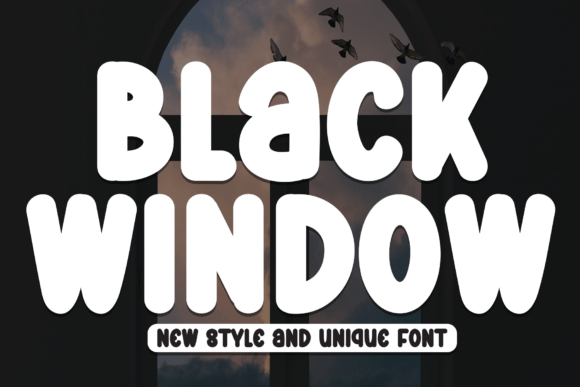
Introducing Black Window Font: The Bold and Quirky Display Font for Creative Projects
In the world of typography, fonts play a crucial role in conveying the tone and personality of a brand or creative project. When it comes to making a statement, a bold and eye-catching font is essential. This is where Black Window Font comes in – a quirky display font that packs a punch with its rounded, chunky shapes and fun energy. In this article, we’ll explore the features and benefits of Black Window Font, and how it can elevate your creative projects to the next level.
What is Black Window Font?
Black Window Font is a bold, quirky display font designed to bring a lively and friendly vibe to any creative project. Its oversized forms make it especially great for attention-grabbing titles, headlines, branding, posters, or kids-themed designs. The font’s rounded, chunky shapes give it a unique and playful personality that’s sure to stand out.
Key Features of Black Window Font
- Bold and Quirky Design: Black Window Font boasts a bold and quirky design that’s perfect for making a statement.
- Rounded and Chunky Shapes: The font’s rounded, chunky shapes give it a fun and playful personality.
- Oversized Forms: The font’s oversized forms make it ideal for attention-grabbing titles and headlines.
- Lively and Friendly Vibe: Black Window Font brings a lively and friendly vibe to any creative project.
- Ideal for Various Design Projects: The font is suitable for a wide range of design projects, including headlines, branding, posters, and kids-themed designs.
Benefits of Using Black Window Font
Using Black Window Font in your creative projects can have numerous benefits. Here are a few:
- Grabs Attention: The font’s bold and quirky design is sure to grab attention and make your project stand out.
- Adds Personality: Black Window Font brings a lively and friendly vibe to your project, adding a touch of personality and whimsy.
- Versatile: The font is suitable for a wide range of design projects, making it a versatile addition to your font library.
- Easy to Read: Despite its bold design, Black Window Font is easy to read, making it perfect for headlines and titles.
How to Use Black Window Font in Your Design Projects
Black Window Font is easy to use and can be incorporated into a wide range of design projects. Here are a few ideas to get you started:
- Headlines and Titles: Use Black Window Font to create attention-grabbing headlines and titles that make a statement.
- Branding and Logo Design: The font’s bold and quirky design makes it perfect for branding and logo design projects.
- Posters and Flyers: Black Window Font is ideal for posters and flyers, adding a touch of personality and whimsy to your design.
- Kids-Themed Designs: The font’s playful personality makes it perfect for kids-themed designs, such as children’s books, games, and websites.
Tips for Getting the Most Out of Black Window Font
Here are a few tips for getting the most out of Black Window Font:
- Experiment with Colors: Black Window Font looks great in a variety of colors, so don’t be afraid to experiment and find the perfect hue for your project.
- Play with Sizes: The font’s oversized forms make it perfect for attention-grabbing titles, but don’t be afraid to experiment with different sizes to create visual interest.
- Combine with Other Fonts: Black Window Font pairs well with a variety of other fonts, so don’t be afraid to combine it with other fonts to create a unique look.
In conclusion, Black Window Font is a bold and quirky display font that’s perfect for making a statement. Its rounded, chunky shapes and fun energy make it ideal for a wide range of design projects, from headlines and branding to posters and kids-themed designs. With its oversized forms and lively personality, Black Window Font is sure to grab attention and add a touch of personality to your creative projects.
- What is Black Window Font?
- Black Window Font is a bold, quirky display font designed to bring a lively and friendly vibe to any creative project.
- What is Black Window Font suitable for?
- Black Window Font is suitable for a wide range of design projects, including headlines, branding, posters, and kids-themed designs.
- Is Black Window Font easy to read?
- Yes, despite its bold design, Black Window Font is easy to read, making it perfect for headlines and titles.